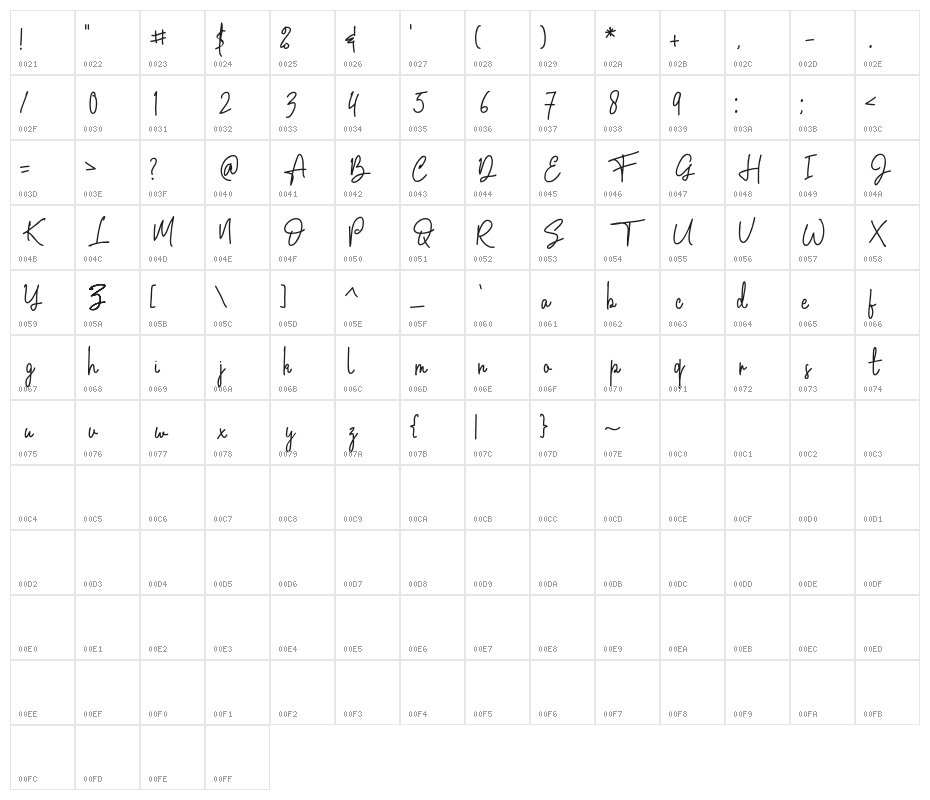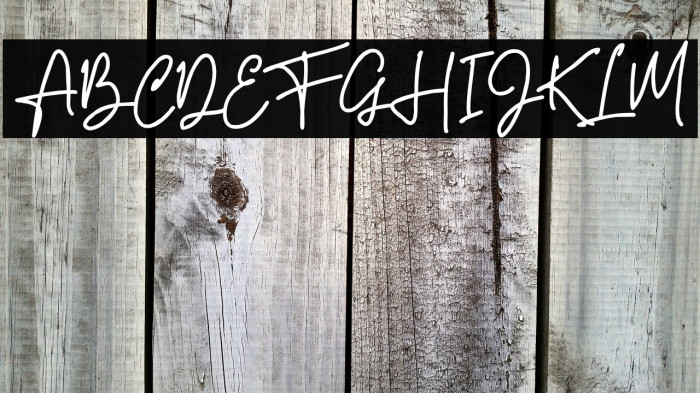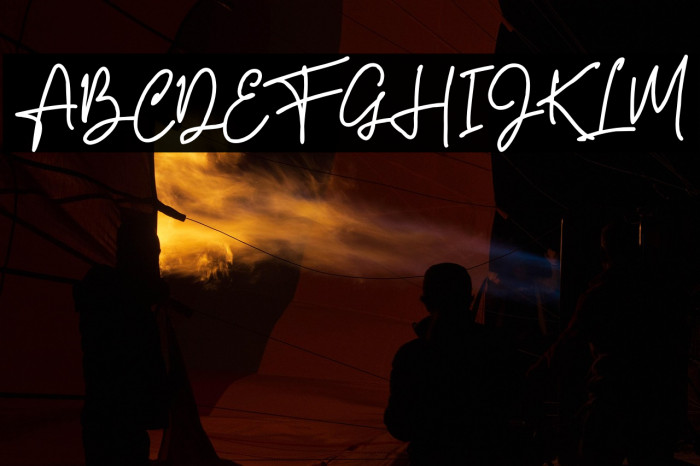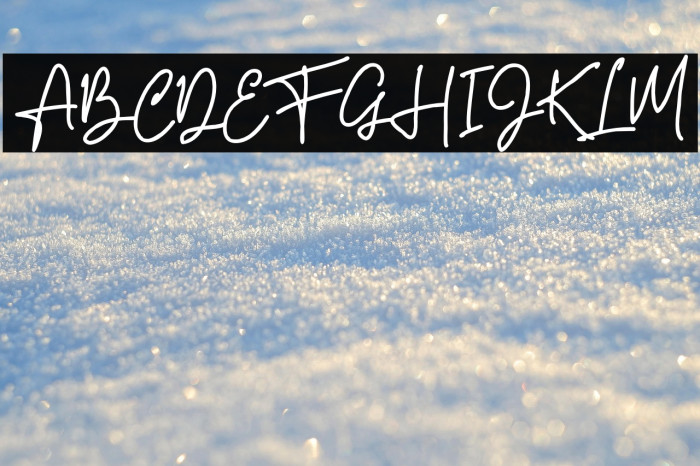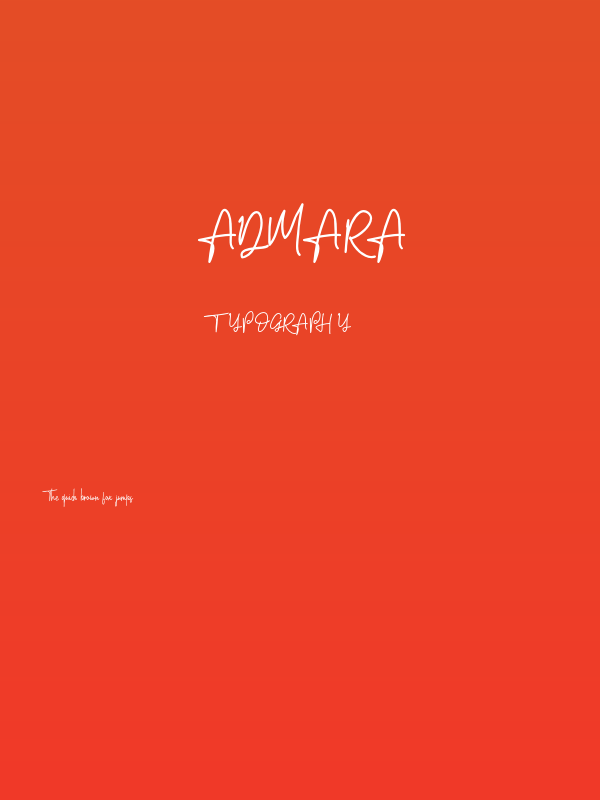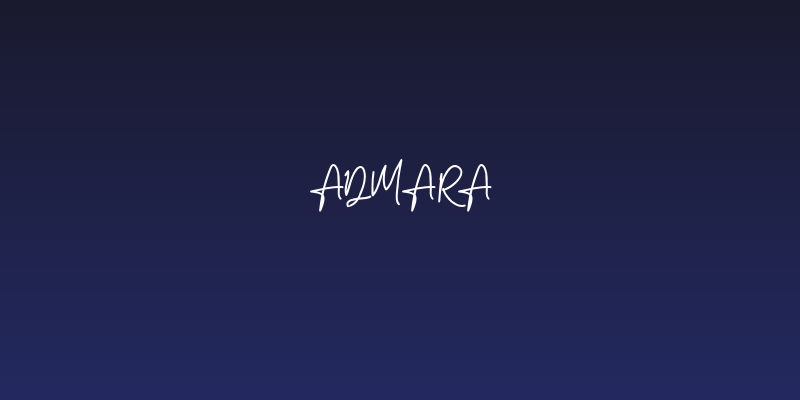
Admara Font
Admara Description
This font exhibits a lively and dynamic handwritten style, characterized by its fluid and continuous strokes. The uppercase letters are bold and slightly slanted, giving a sense of movement and energy. The lowercase letters maintain a consistent flow, with some letters featuring loops and curls that enhance its handwritten appeal. The numerals are clear and legible, matching the overall style of the alphabet. Special characters are well-integrated, maintaining the same energetic and casual feel. This font is perfect for projects that require a personal touch, such as invitations, greeting cards, or branding materials that aim to convey warmth and approachability.
| Overall Style | Casual, Energetic |
| Proposed Projects | Ideal for invitations, greeting cards, personal branding, and creative projects. |